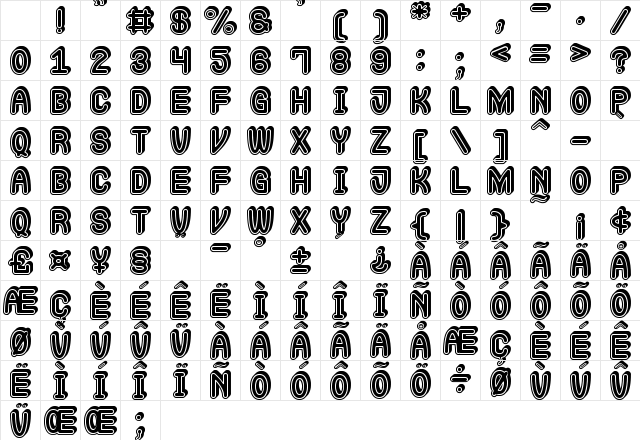
Complete Extra Gro St Regular glyph index. Displaying only characters natively supported by Extra Gro St Regular font.
Extra Gro St is a composed and adaptable typeface that performs quietly and consistently across a wide range of design contexts.